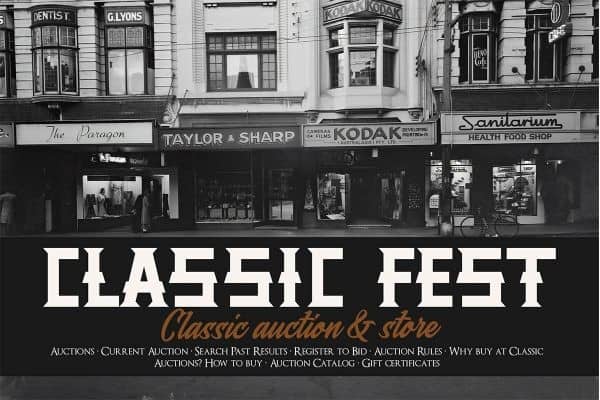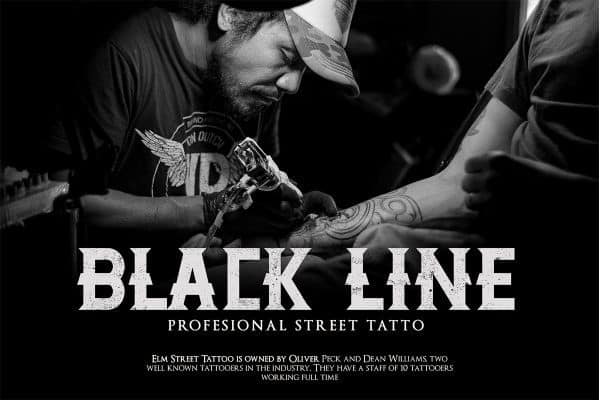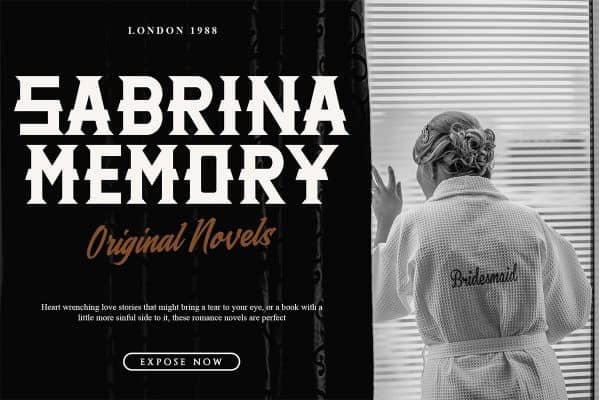
Distric of Barthon Display Font
Distric of Barthon Display Font is modern multipurpose handmade display font perfect for branding projects, logo, wedding designs, social media posts, advertisements, product packaging, product designs, label, photography, watermark, invitation, stationery, Badge, poster, t-shirt, label, logo etc.